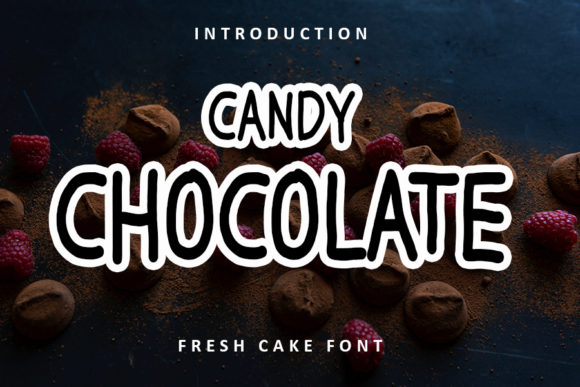
Embark on a delectable typographic journey with Candy Chocolate Font, a display font that exudes a charm as sweet as its namesake. Created by the talented FL Space, this font captivates with its simple yet elegant design, ready to transform your creative projects into visual masterpieces.
Immerse yourself in the font's incredibly versatile style, allowing your imagination to run wild. Craft exquisite wedding invitations that capture the essence of love and commitment. Design eye-catching social media posts that demand attention and leave a lasting impression. Create beautiful stationary art that reflects your unique personality and style. The possibilities are endless with Candy Chocolate Font.
Fall head over heels for its delightful curves and playful characters. Each letterform dances harmoniously on the page, evoking a sense of joy and whimsy. Let your designs sing with the font's enchanting personality, drawing your audience into a captivating visual experience.
Candy Chocolate Font is the perfect choice for designers seeking a font that effortlessly elevates their work. Its versatility knows no bounds, catering to a wide range of design projects. Whether you're a seasoned professional or just starting, this font will add a touch of magic to your creations.
Don't resist the temptation to indulge in the sweetness of Candy Chocolate Font. Embrace its charm, let your creativity soar, and watch as your designs transform into delectable works of art. Dive into the world of Candy Chocolate Font today and experience the joy of creating with a font that truly stands out.